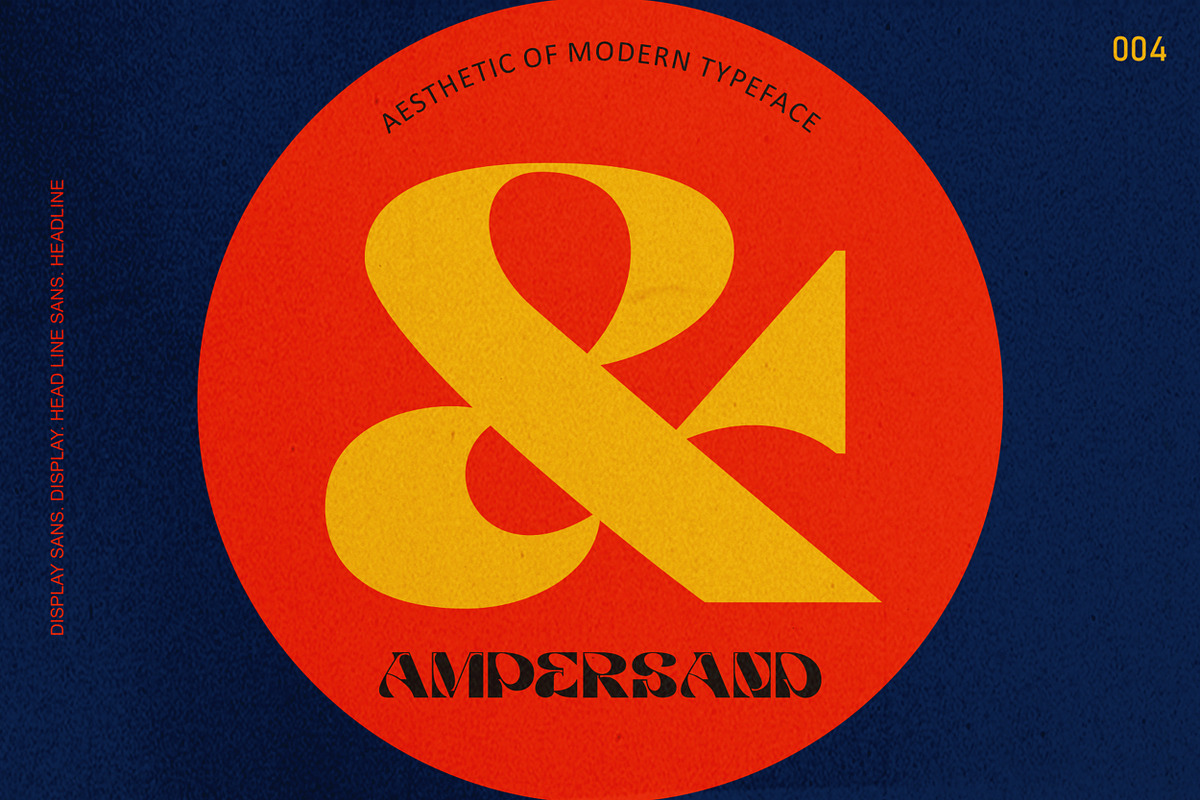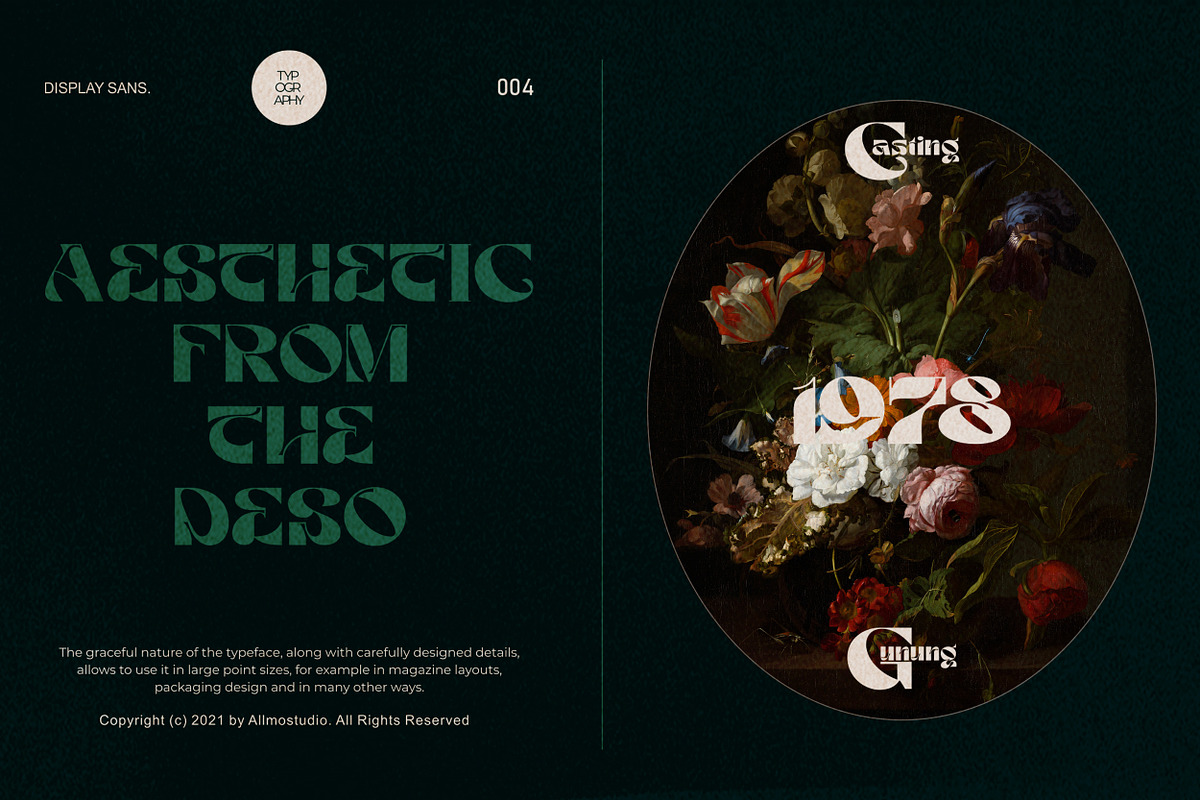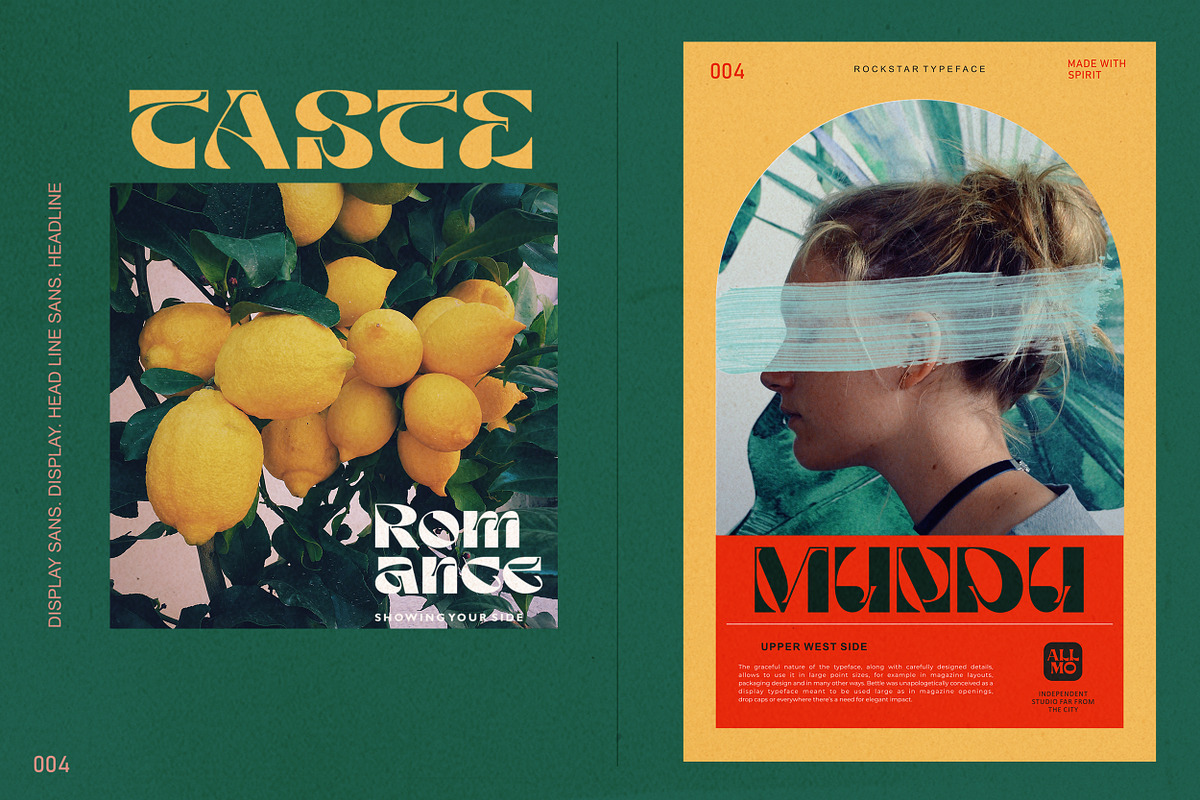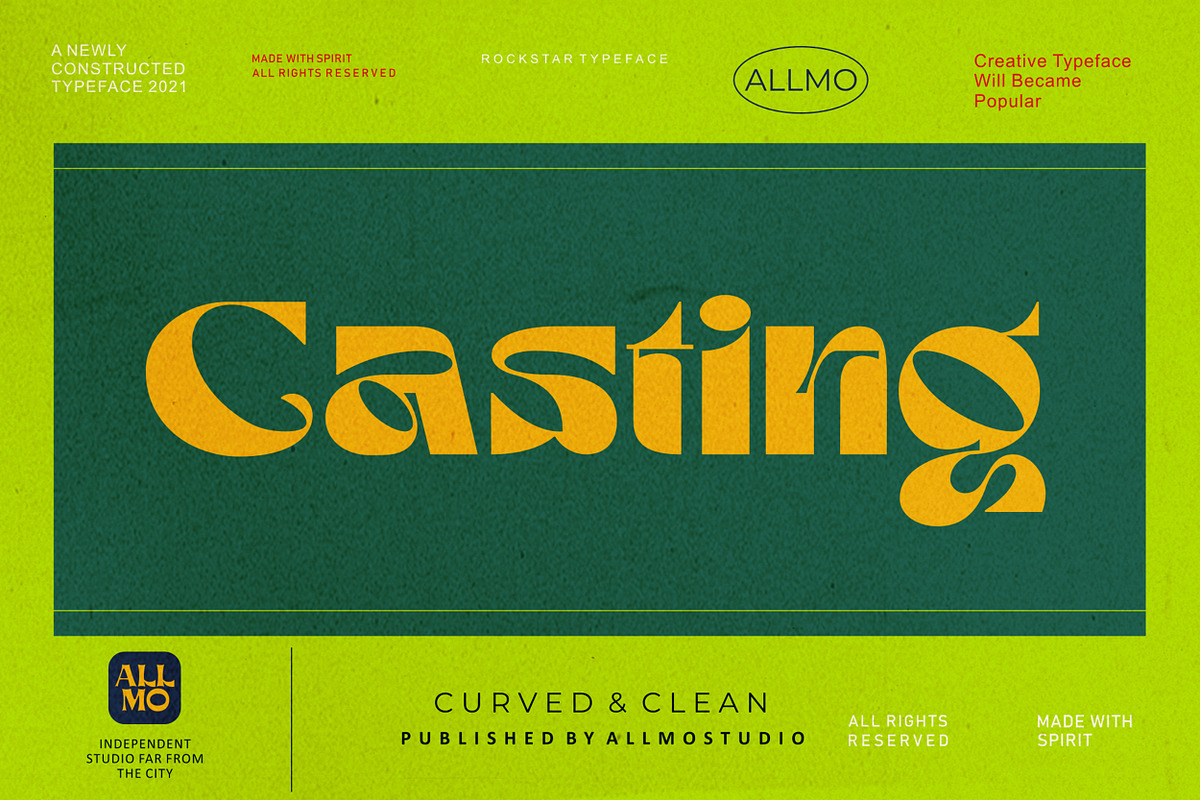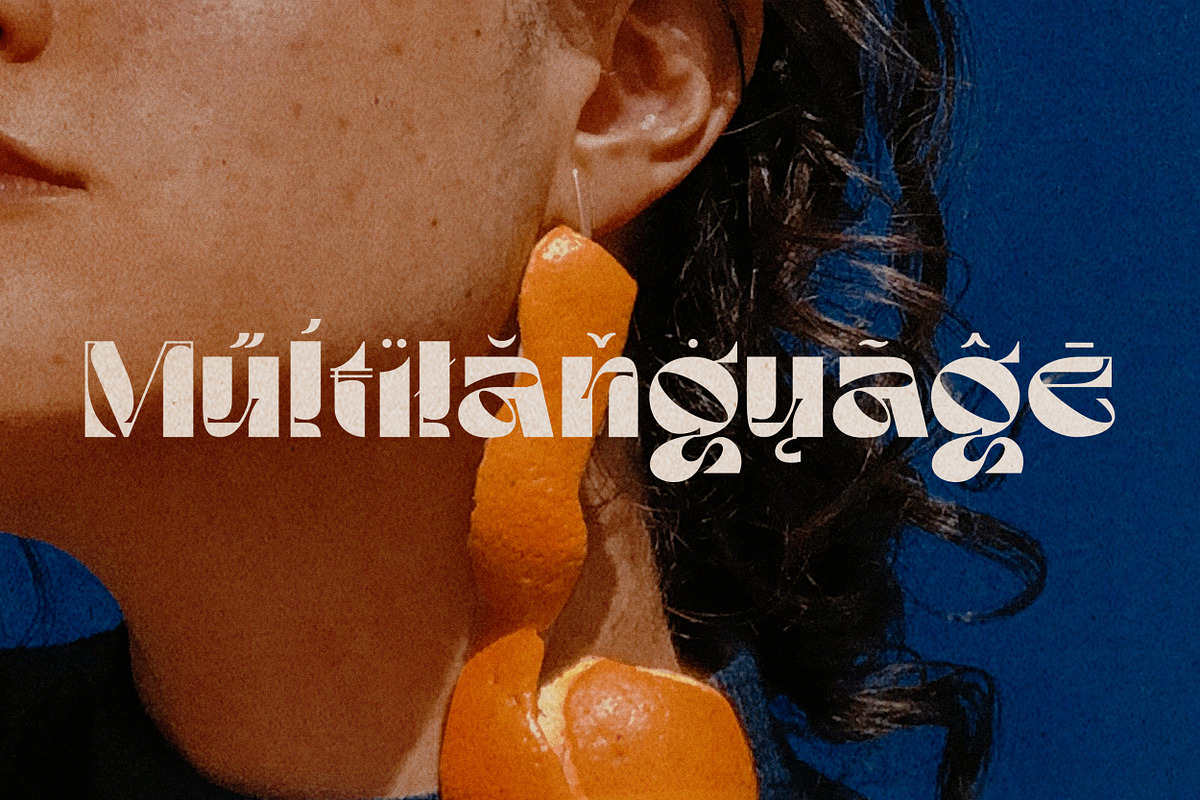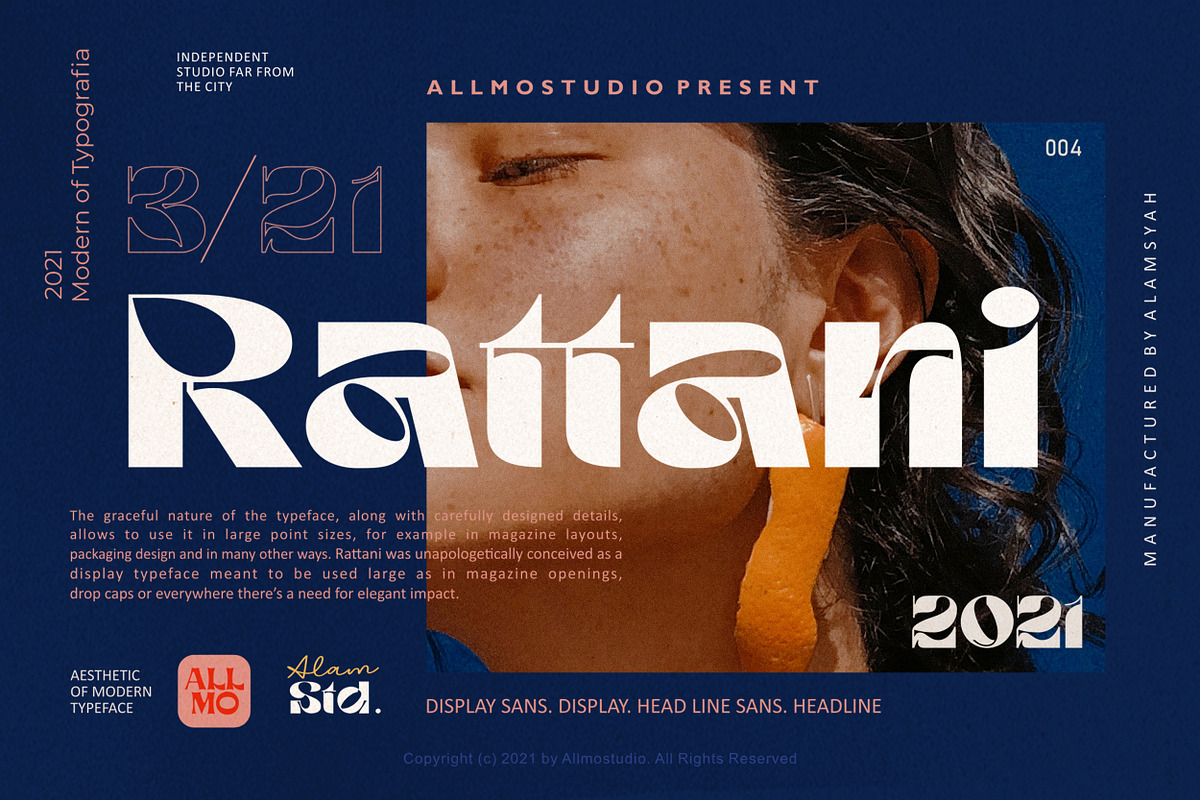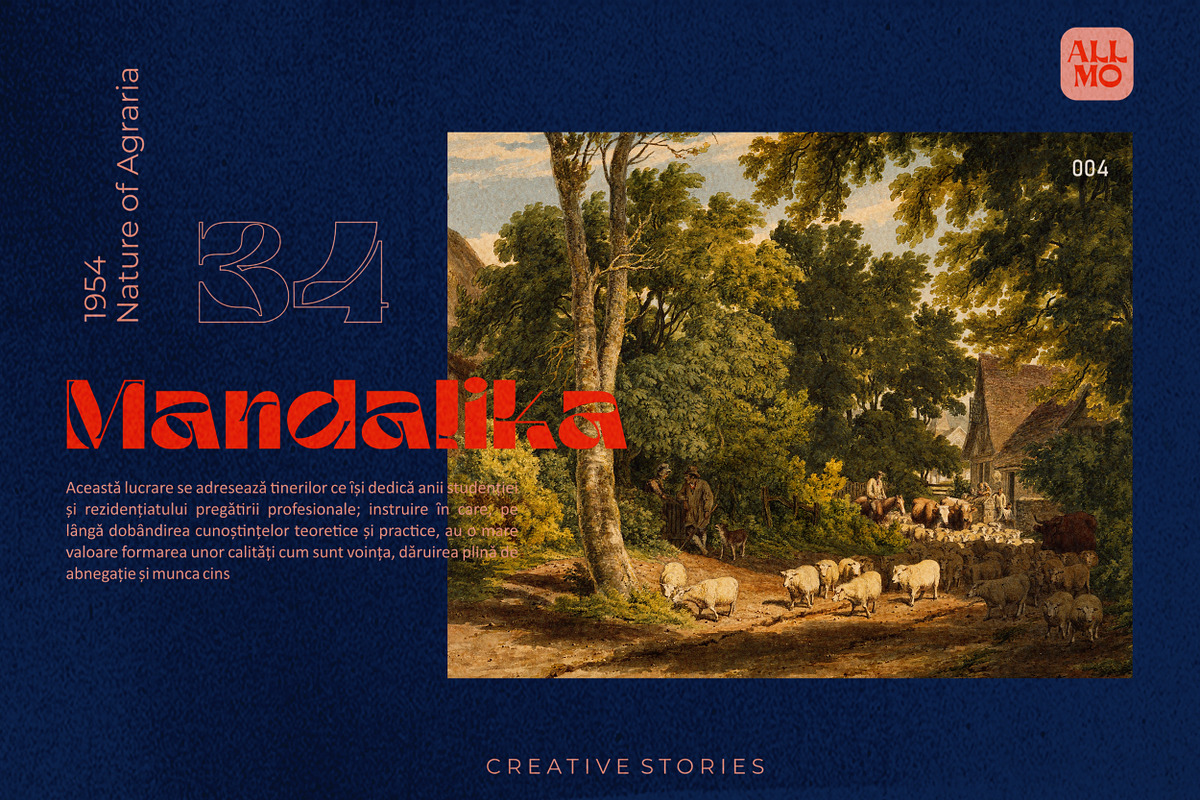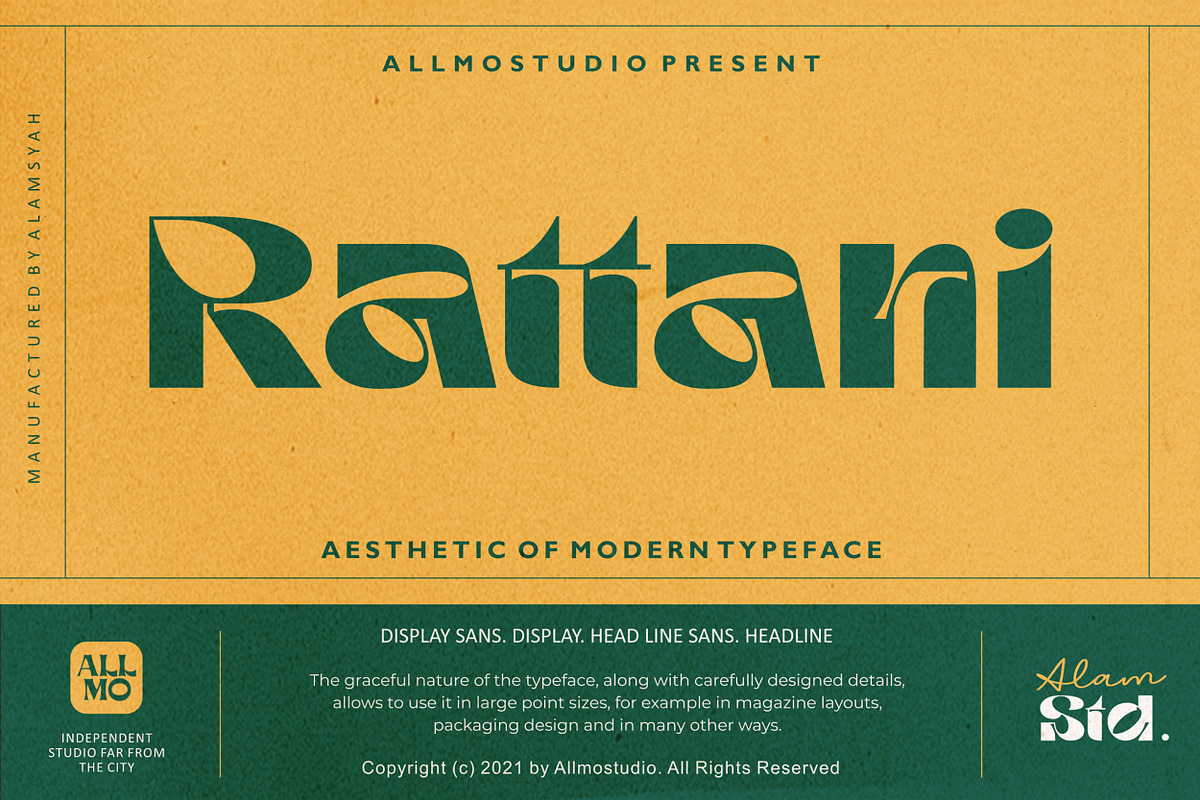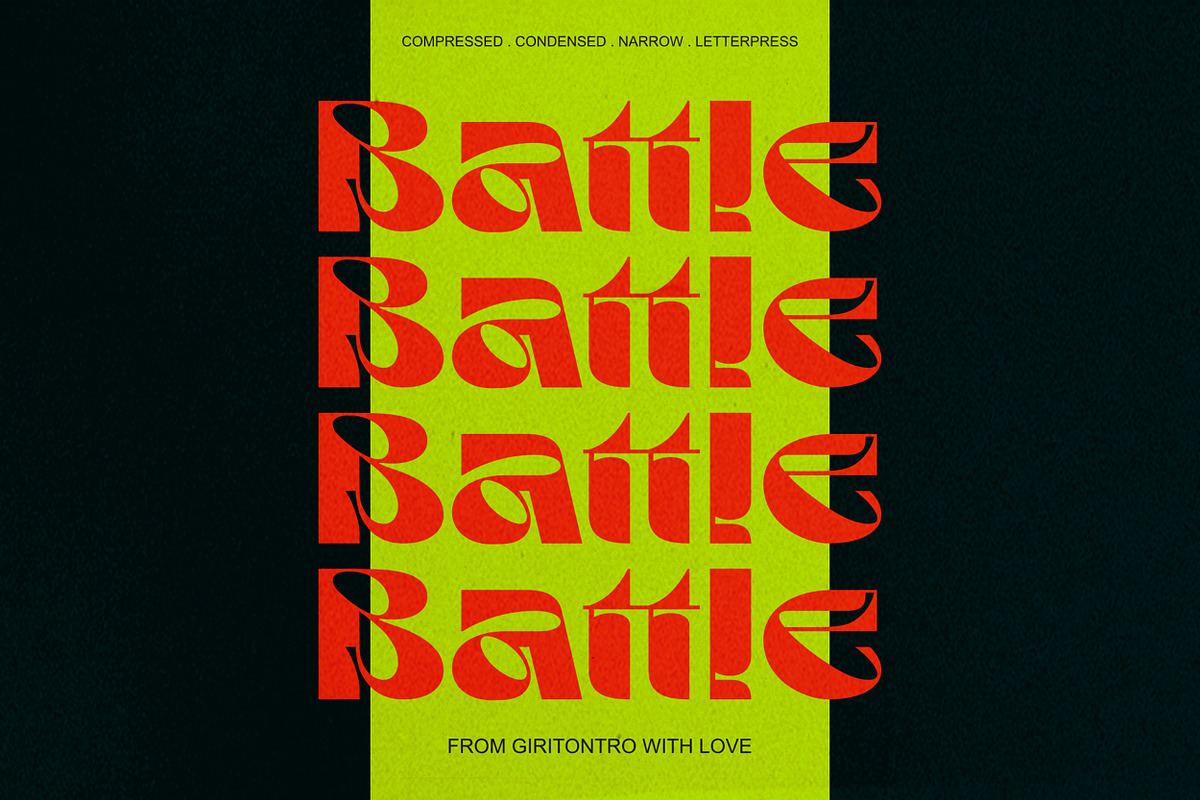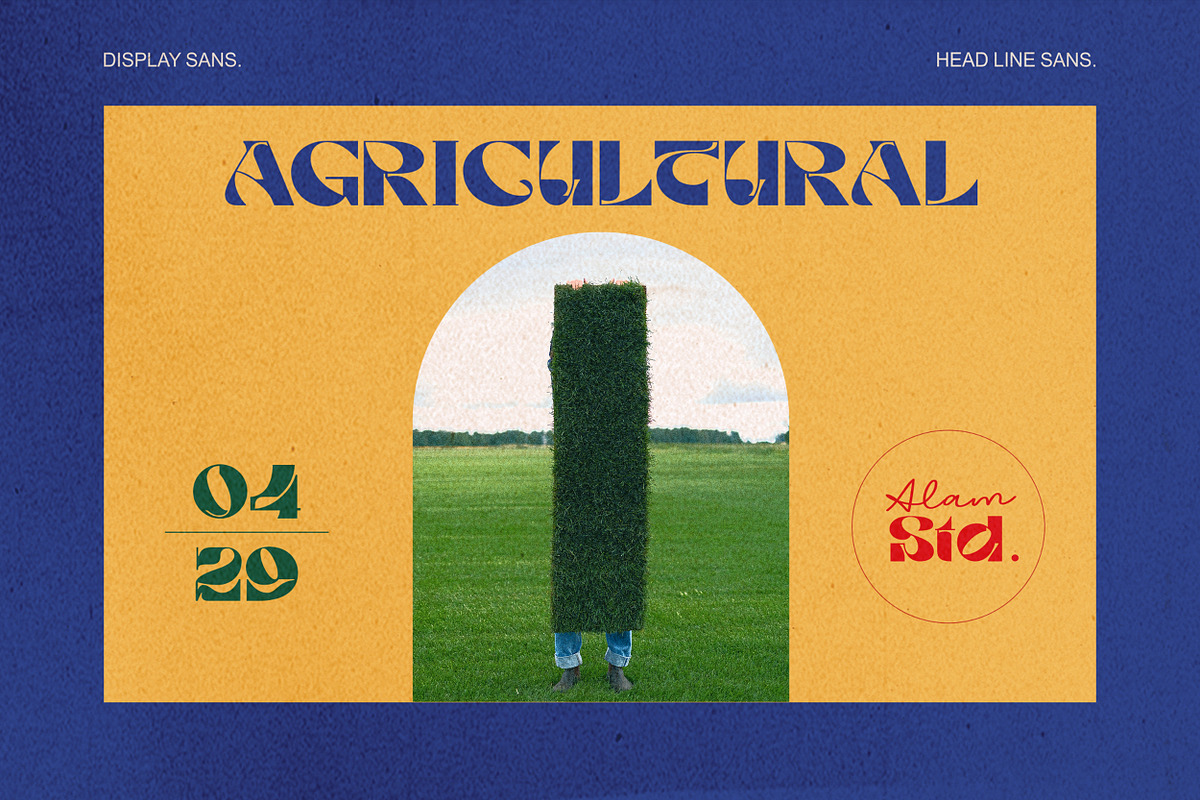
Rattani
Rattani the graceful nature of the typeface, along with carefully designed details, allows to use it in large point sizes, for example in magazine layouts, packaging design and in many other ways.
Rattani was unapologetically conceived as a display typeface meant to be used large as in magazine openings, drop caps or everywhere there’s a need for elegant impact.
Rattani is perfect choice for people looking for clean, modern, minimalist, elegant, beauty design styles.